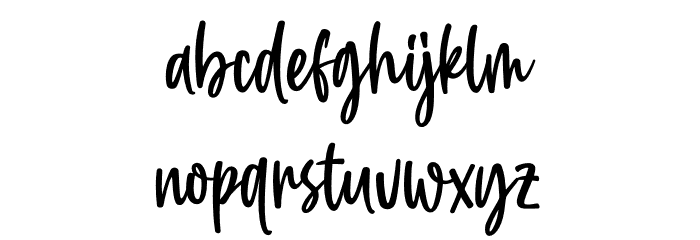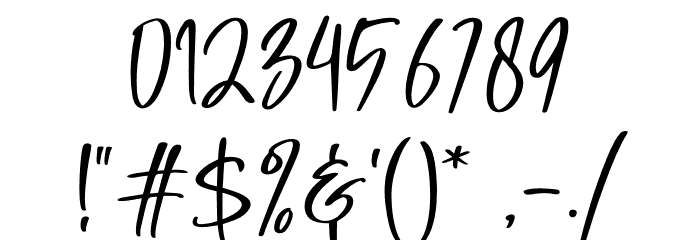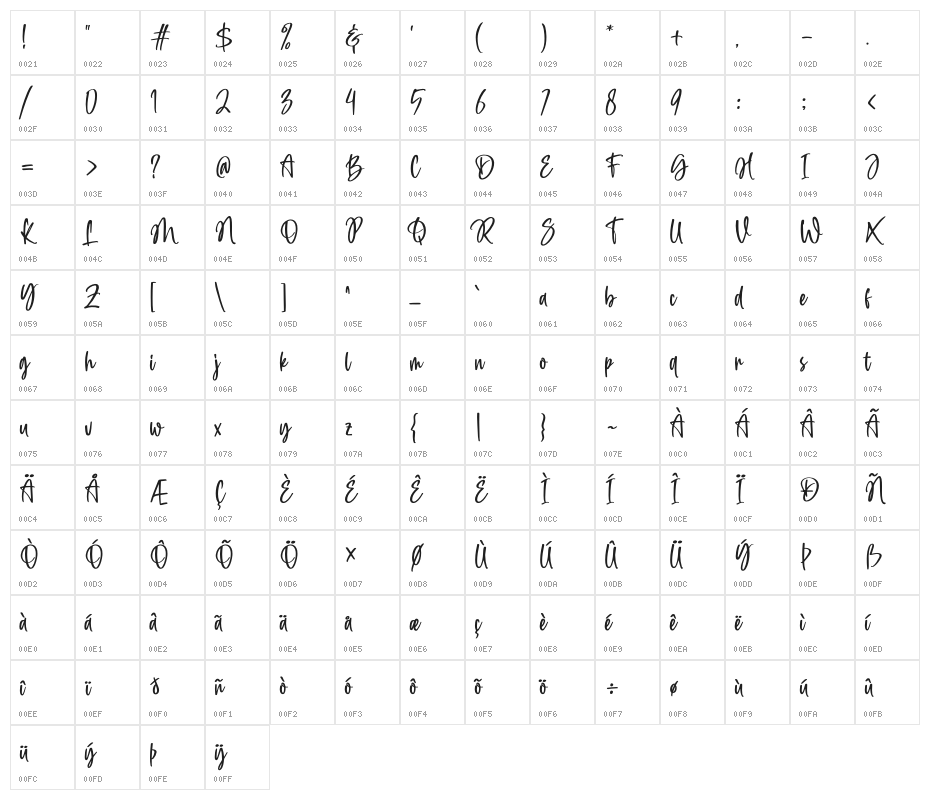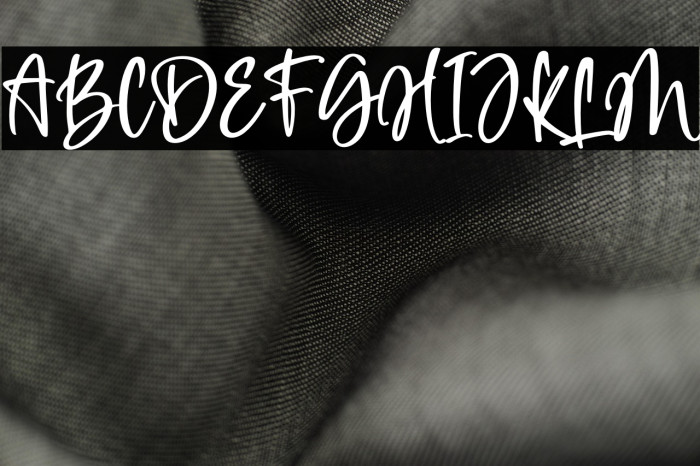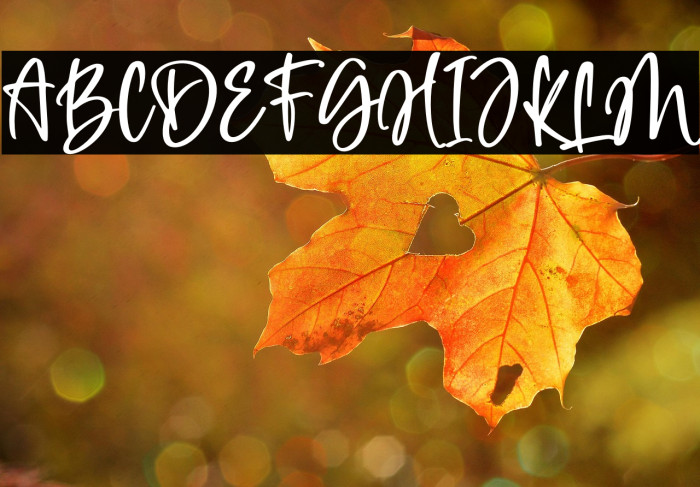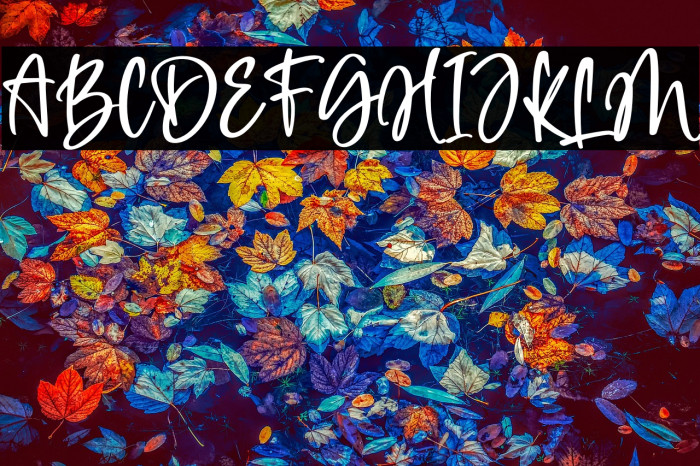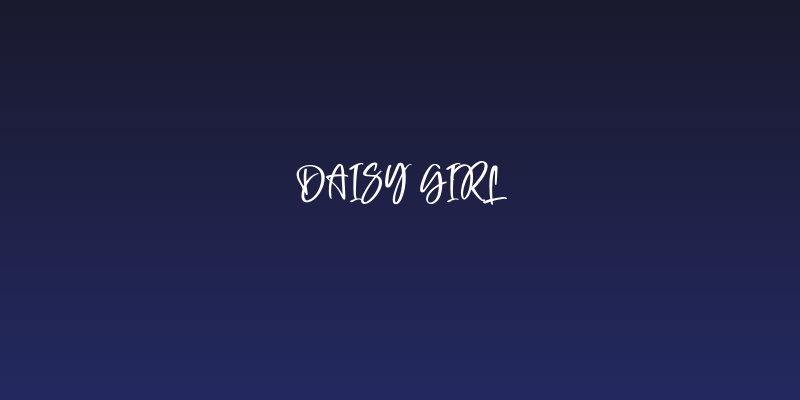
Daisy Girl Font
This font features a playful and energetic script style, characterized by its flowing, cursive letters that mimic a handwritten aesthetic. The strokes are smooth and slightly irregular, adding a personal touch to the text. The uppercase letters are bold and dynamic, while the lowercase letters maintain a consistent flow, enhancing readability. The numbers and special characters follow the same lively style, making them suitable for creative and informal designs. The overall appearance is both modern and whimsical, perfect for projects that require a touch of personality and flair.
A playful, handwritten script font with smooth, flowing strokes.
- Font: Daisy Girl
- Proposed Projects: Ideal for greeting cards, invitations, logos, and social media graphics.
- Category: Handwritten
- Use Case: Logos, Invitations, Social media graphics